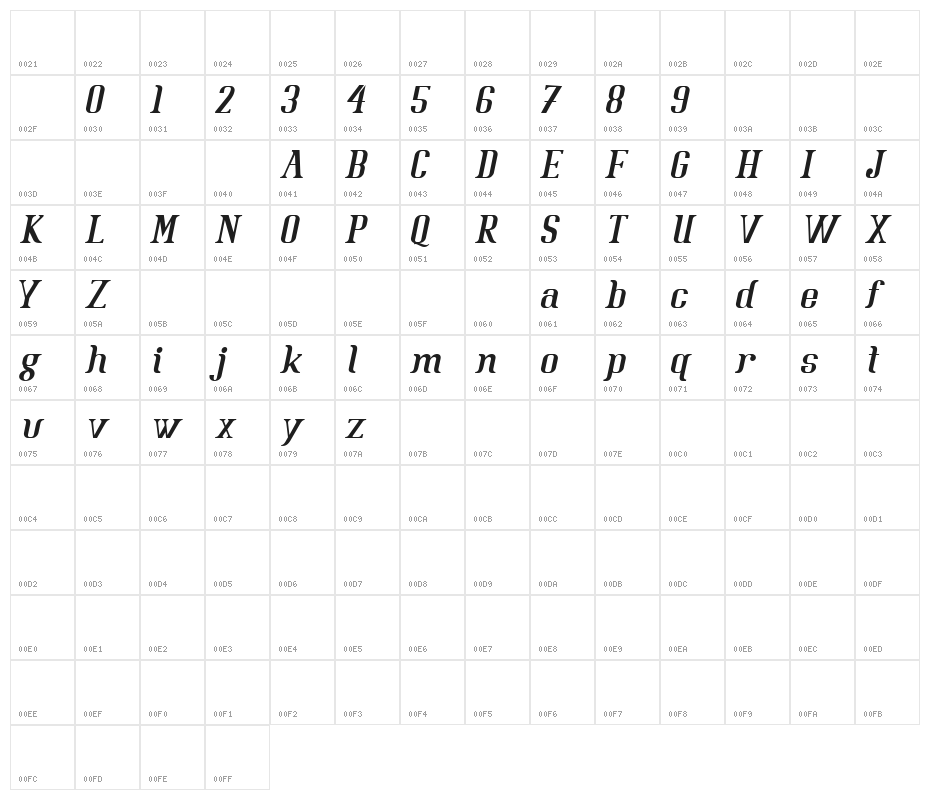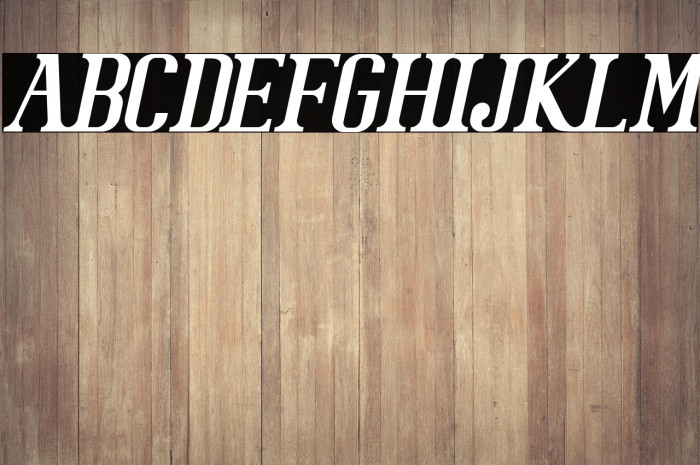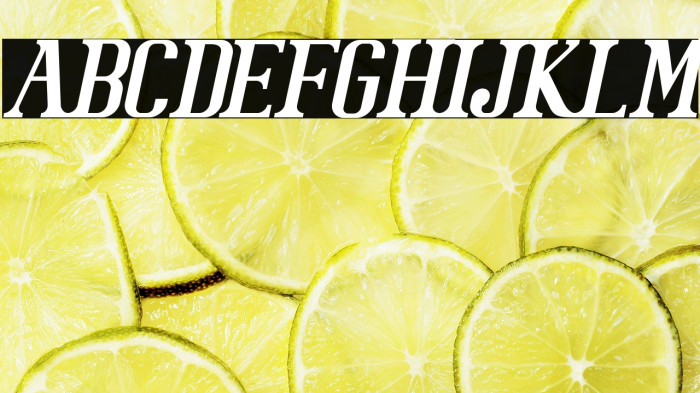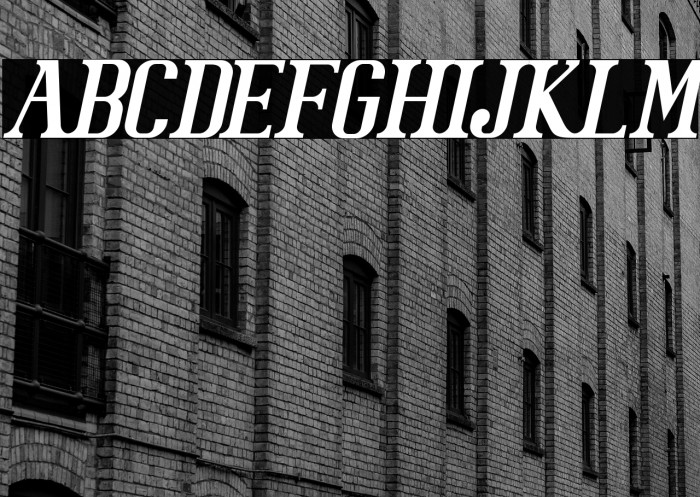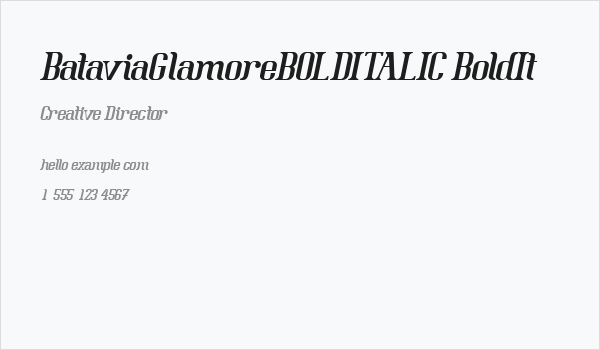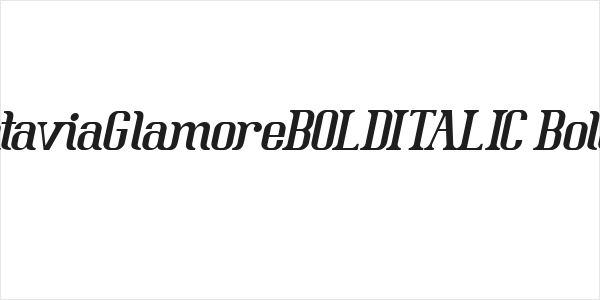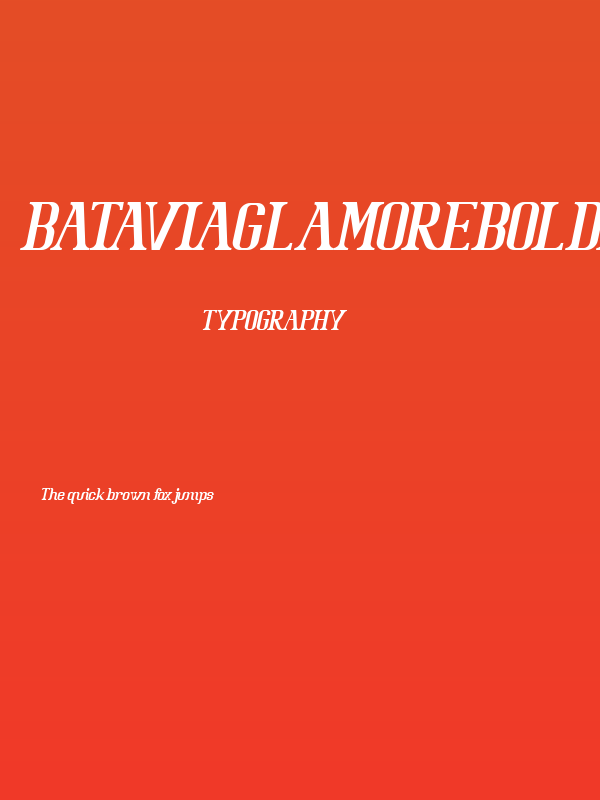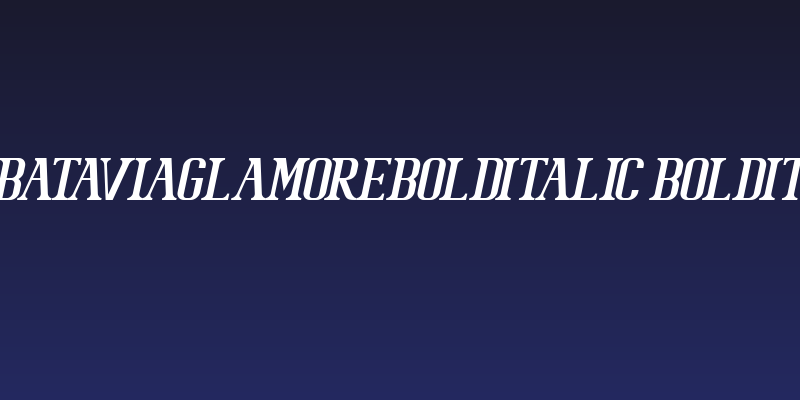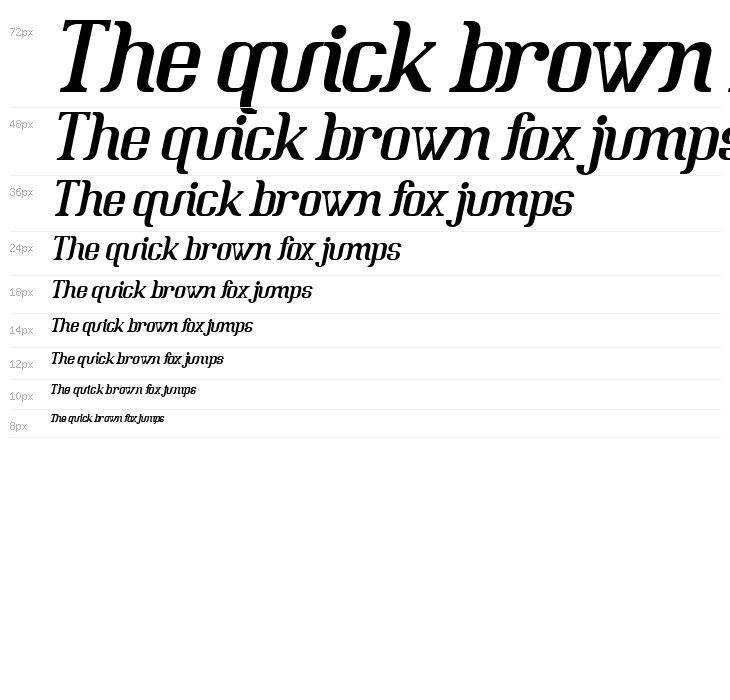
BataviaGlamoreBOLDITALIC-BoldIt Font
BataviaGlamoreBOLDITALIC-BoldIt Description
This font exhibits a bold and italic style, characterized by its strong and dynamic presence. The uppercase letters are tall and slightly condensed, with a noticeable slant that adds a sense of motion and elegance. The lowercase letters maintain a consistent style, with smooth curves and a cohesive flow that complements the uppercase set. The numerals are robust and align well with the overall design, ensuring readability and aesthetic appeal. This font's unique combination of boldness and italicization makes it stand out, while its structured form ensures clarity.
| Proposed Projects | Ideal for branding, headlines, posters, and any project requiring a bold, stylish statement. |